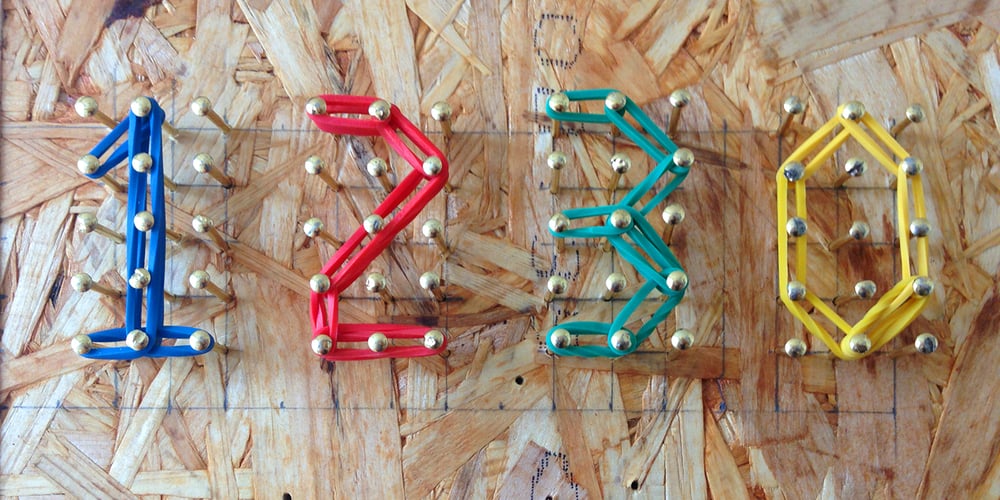
Polyline Font Family was designed by Mårten Nettelbladt and published by Mårten Nettelbladt. Polyline contains 5 styles and family package options. Polyline is based on a small 3×5 grid giving it a rather crude and technical look, further emphasized by the monospacing. ‘Polyline’ is a command often found in CAD-software that is used to create a series of connected lines. The typeface can also be installed as an AutoCAD .shx font, included in the download along with the .shp source file and the stroke shapes for all characters as .pdf